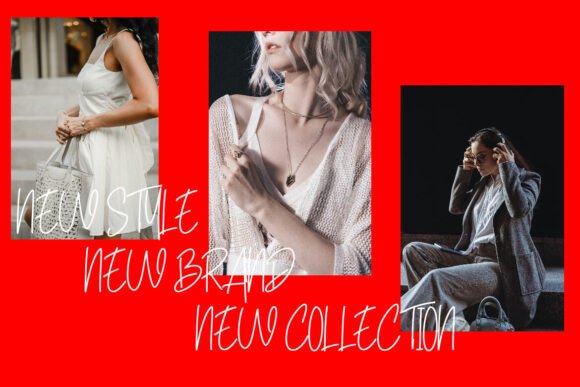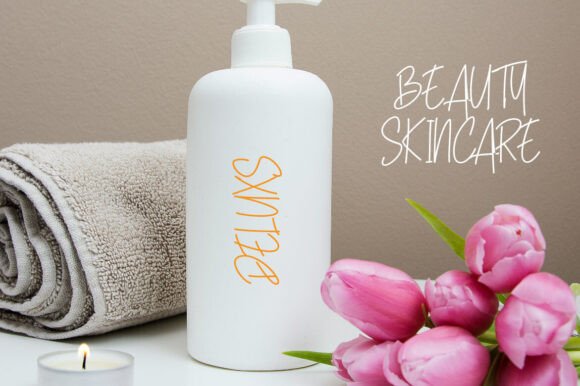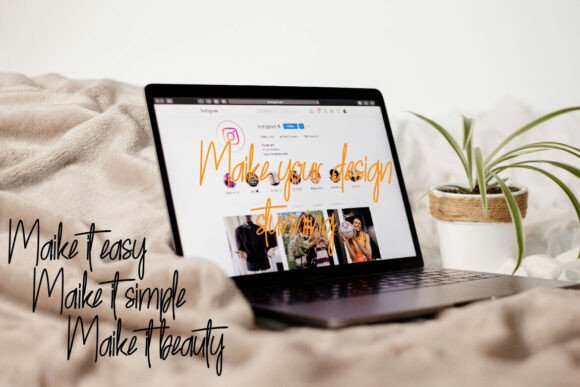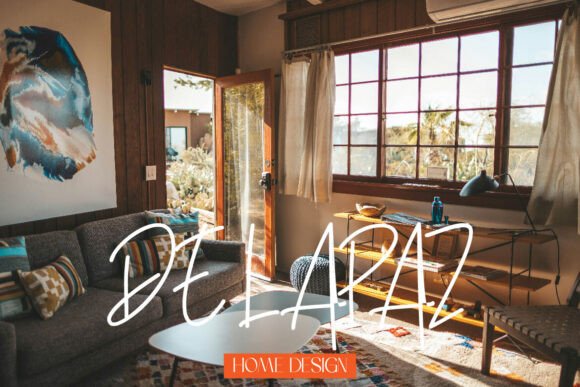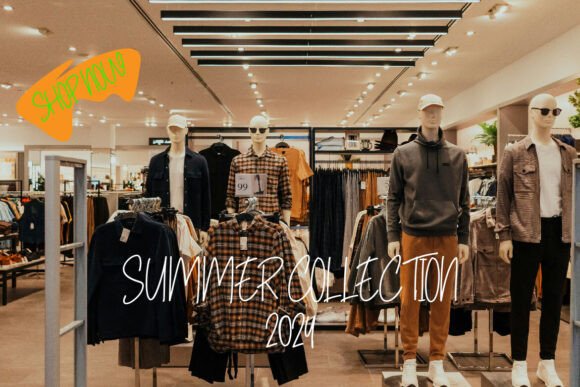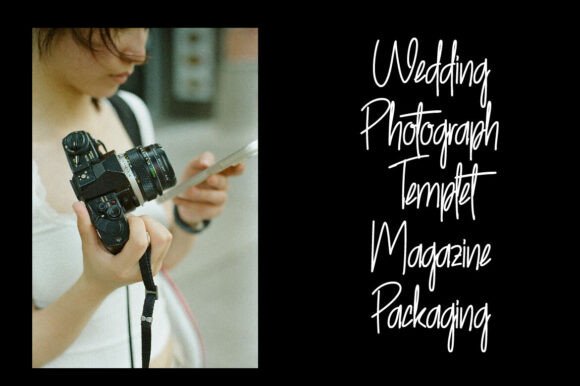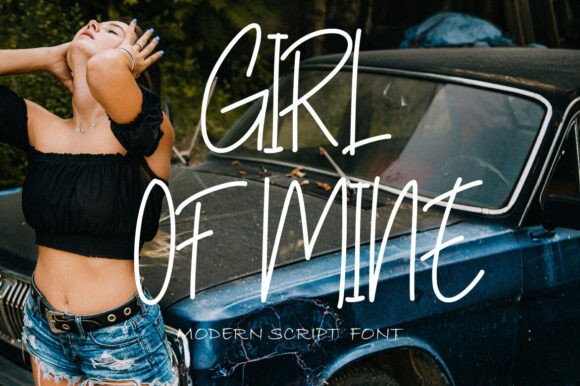
Discover the Elegance of Girl of Mine Font: Elevate Your Designs with Modern Script Sophistication
In the realm of typography, few fonts manage to capture the essence of modern script with the elegance and fluidity of the “Girl of Mine” font. This stunning typeface is a masterpiece of design, blending style and sophistication in a way that makes it an indispensable tool for designers and crafters alike. Whether you’re working on branding initiatives, logo creation, nuptial designs, social media content, or advertising campaigns, the “Girl of Mine” font is poised to add a touch of personal charm and handwritten elegance to your projects.
The Aesthetic Appeal of Girl of Mine Font
The “Girl of Mine” font is characterized by its signature curves and an elegant fluidity that mimics the natural flow of ink on paper. This distinctive feature sets it apart from more rigid and traditional typefaces, offering a refreshing aesthetic that is both modern and timeless. The fluid strokes of this font evoke a sense of freedom and creativity, making it perfect for designs that require a personal touch.
One of the key advantages of the “Girl of Mine” font is its versatility. Its applications are vast and varied, making it an excellent choice for:
- Branding Initiatives: Establish a unique identity for your brand with a font that exudes elegance and sophistication.
- Logo Creation: Craft memorable logos that stand out with the distinctive, flowing lines of the “Girl of Mine” font.
- Nuptial Design Projects: Add a touch of romance and elegance to wedding invitations, cards, and other related designs.
- Social Media Content: Elevate your social media presence with eye-catching text that captures the essence of modern script.
- Advertising Campaigns: Create compelling ads that draw viewers in with the fluid, dynamic appeal of the “Girl of Mine” font.
- Product Packaging: Stand out on store shelves with packaging that features a font which combines style with a personal, handwritten charm.
Crafting a Distinct Identity
The “Girl of Mine” font does more than just add text to your designs; it infuses them with a distinct identity. Every stroke of this font carries a sense of elegance and fluidity, making your designs instantly recognizable. In a world where brands and individuals are constantly seeking to differentiate themselves, the “Girl of Mine” font offers a unique aesthetic that can set your work apart.
Why Choose Girl of Mine Font?
Choosing the “Girl of Mine” font for your design projects comes with numerous benefits:
- Timeless Appeal: Unlike trendy fonts that may quickly become outdated, the “Girl of Mine” font boasts a timeless quality that ensures your designs remain stylish for years to come.
- Elegance and Sophistication: Add a level of sophistication to your designs that is hard to achieve with more conventional typefaces.
- Versatility: Its wide range of applications makes it a valuable addition to any designer’s toolkit.
- Personal Touch: Bring a sense of personality and human touch to your designs, making them more relatable and engaging.
The “Girl of Mine” font is a remarkable addition to the world of typography, offering a perfect blend of modern script and timeless elegance. Its fluid strokes and signature curves make it an excellent choice for a wide array of design projects, from branding and logo creation to nuptial designs and advertising campaigns. By incorporating the “Girl of Mine” font into your designs, you’re not just adding text; you’re crafting a distinct identity that exudes sophistication and personal charm. Whether you’re a professional designer or a crafter, this font is sure to elevate your work to new heights of aesthetic excellence.